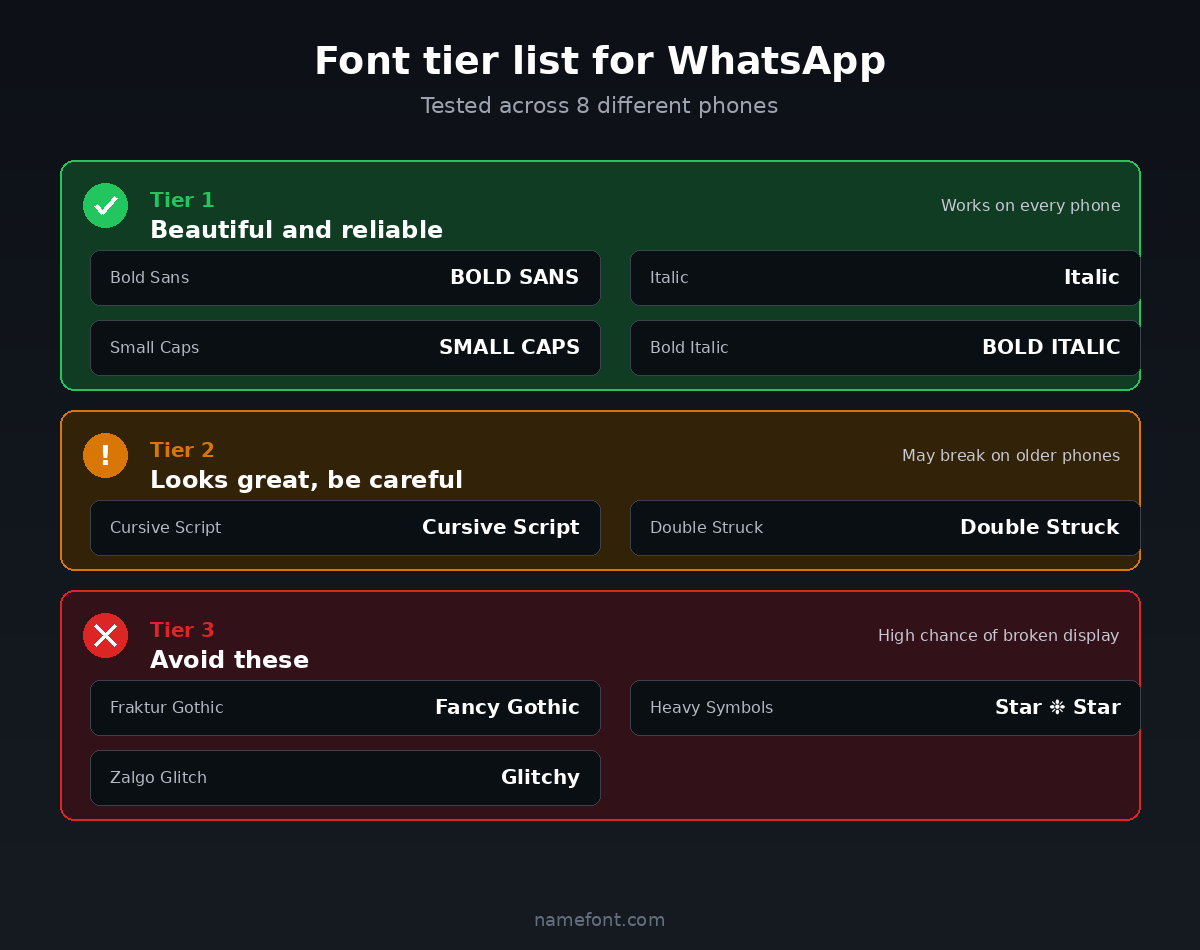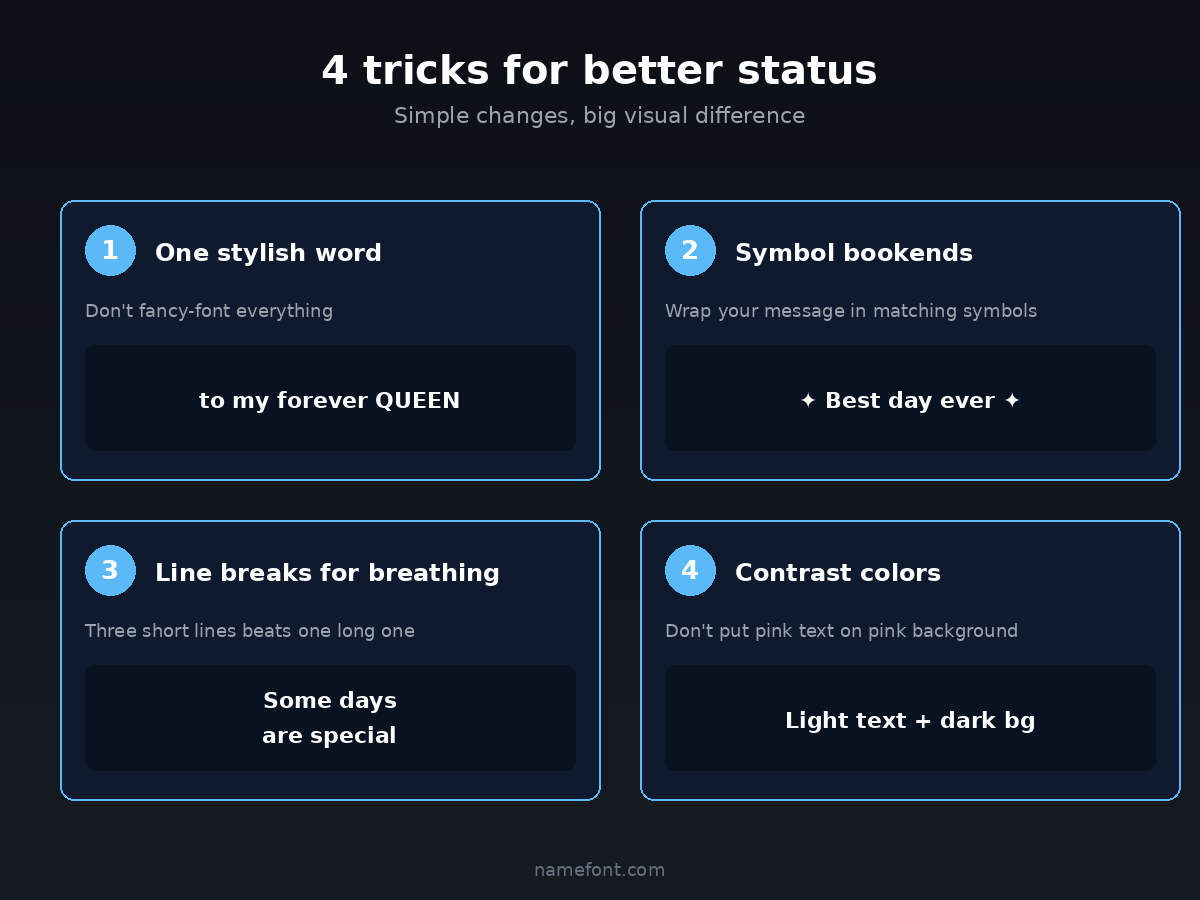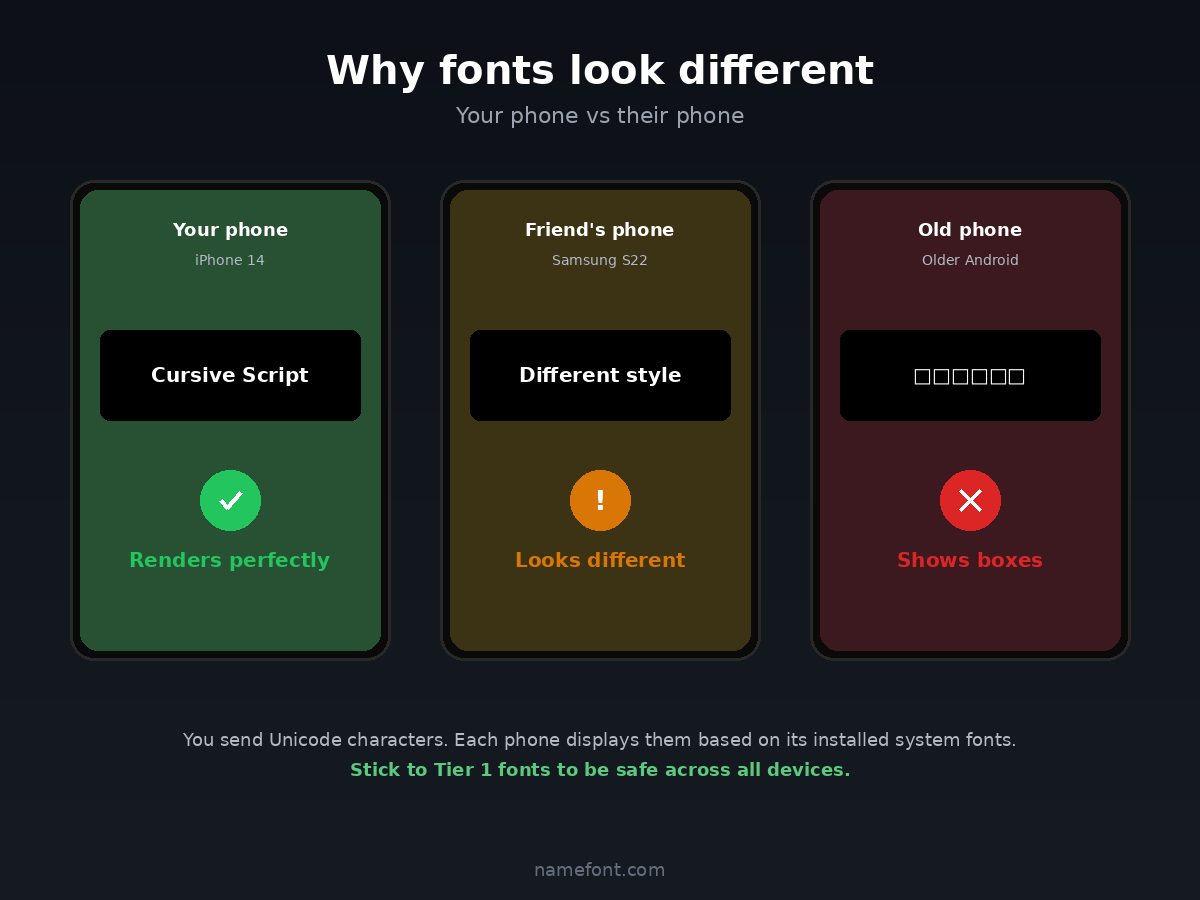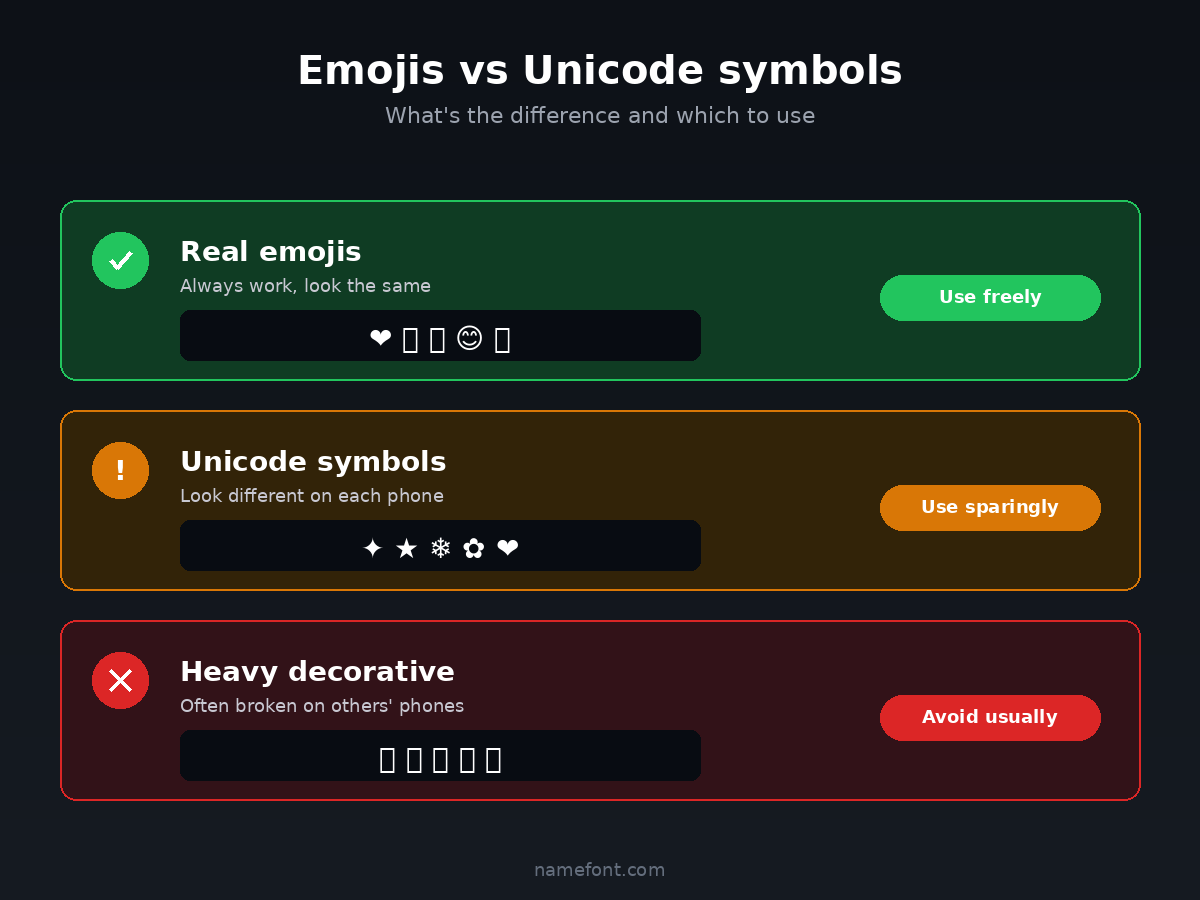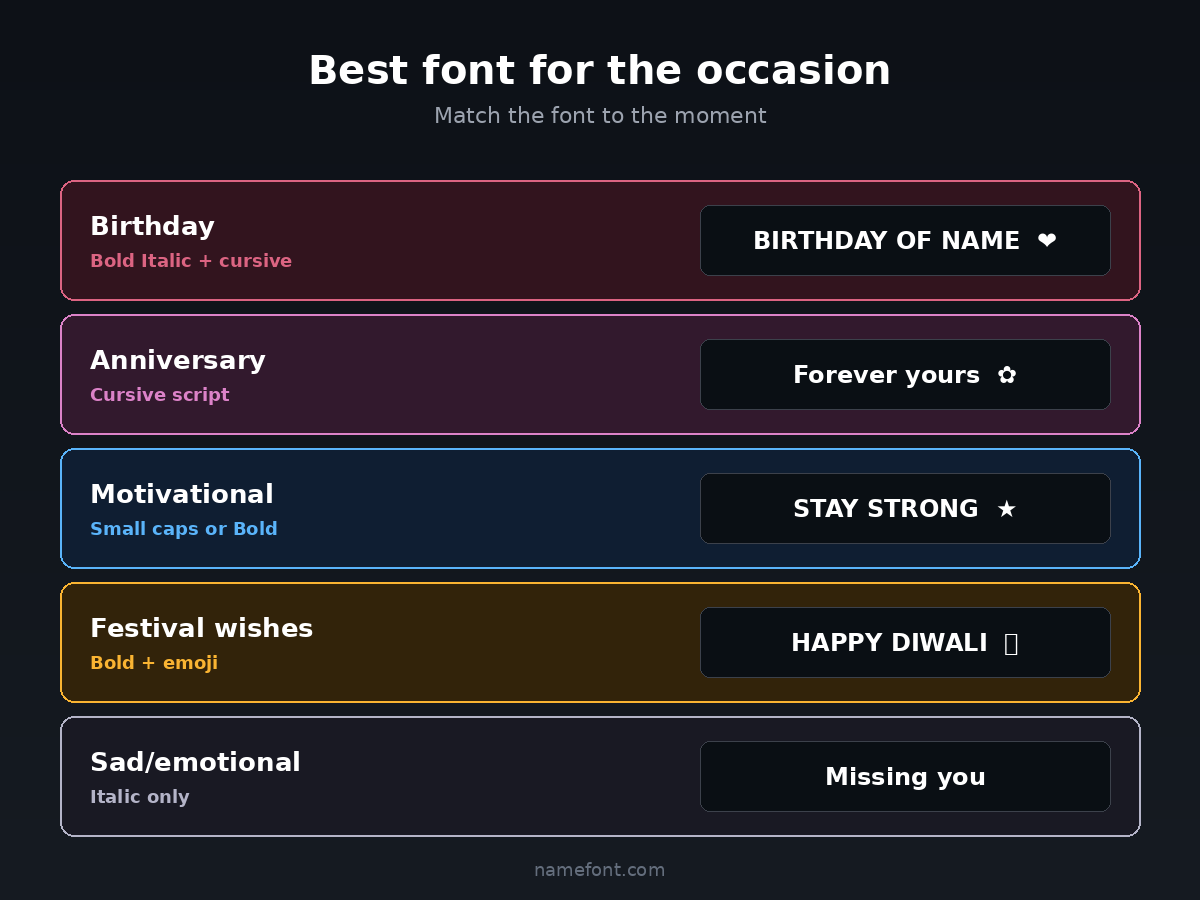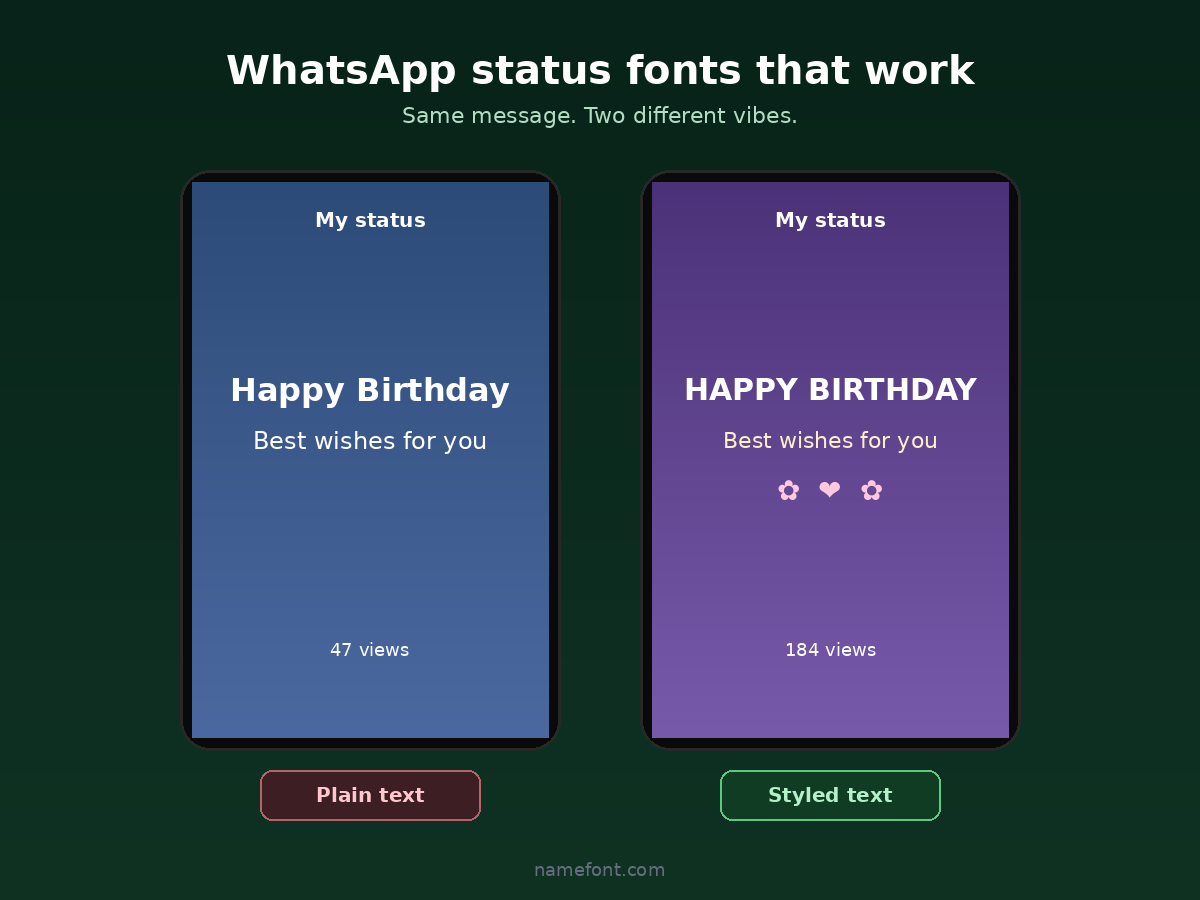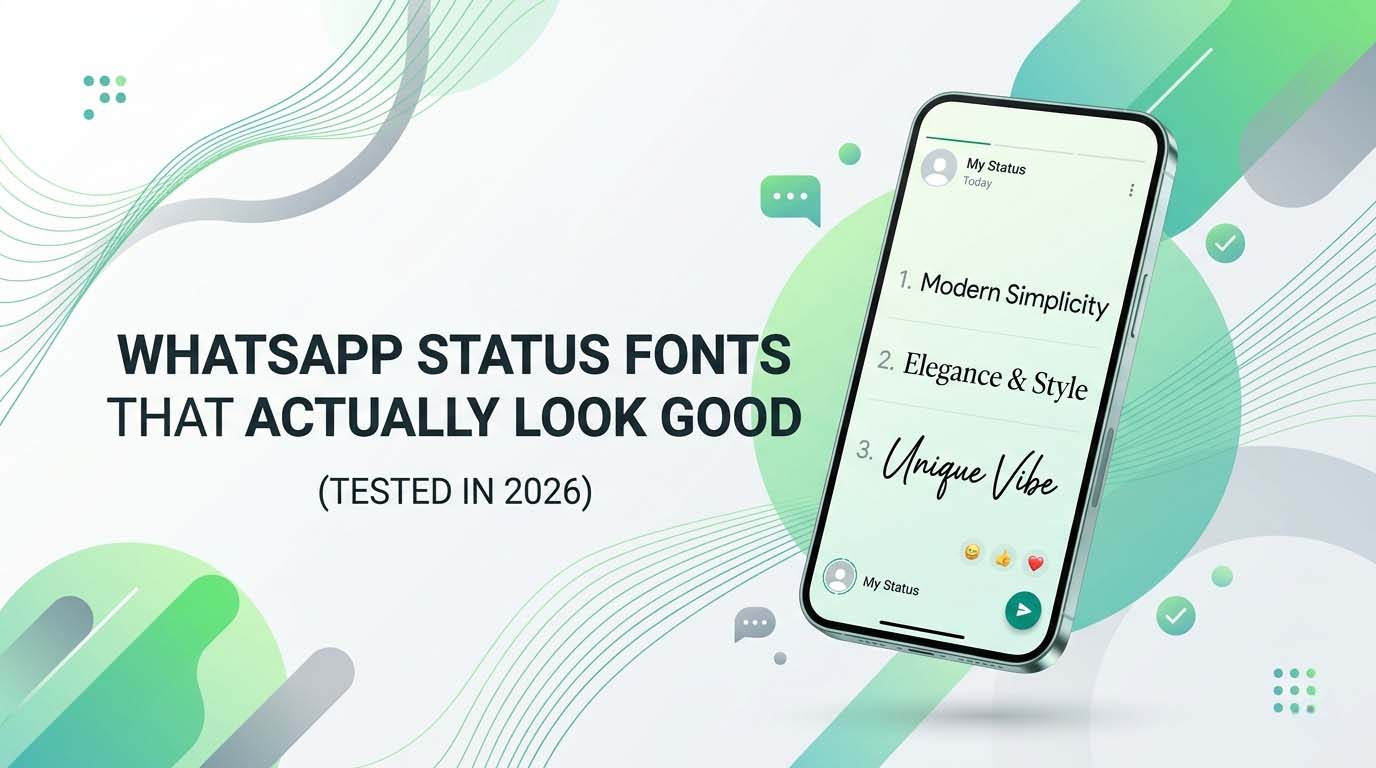
Quick question โ what's the difference between a WhatsApp status that gets 50 views and one that gets 200?
Sometimes it's the content. Sometimes it's just that the text looked beautiful enough that people stopped scrolling.
I'm not saying fancy fonts are magic. But after watching my cousin's birthday status get flooded with replies just because of how nice the font looked, I had to admit โ it makes a difference.
Here's what actually works for WhatsApp status fonts in 2026, what looks good across phones, and which ones to avoid.
WhatsApp text status vs photo status โ they work differently
First thing nobody tells you. WhatsApp has two completely different "status" types:
Text status (the colored background ones) โ has its own built-in fonts. You can't paste fancy Unicode here. Tap the "T" icon and you can switch between Sans Serif, Serif, Norican, Bryndan Write, and Richer fonts. That's it. Five options.
Photo or video status โ you can put any text on top including pasted fancy Unicode fonts. This is where 95% of stylish status posts happen.
Story caption โ same as photo status, full Unicode support.
So when people talk about "WhatsApp fancy fonts," they usually mean photo status overlays or text caption inside the photo, not the colored text-only status.
The fonts that look amazing on every phone
After testing on my own Realme, my friend's iPhone, and three different Samsung phones, these are the fonts that consistently render correctly across all of them:
Tier 1 โ Beautiful and reliable
Bold Sans (๐๐ผ๐น๐ฑ ๐ฆ๐ฎ๐ป๐) โ clean, modern, works on every device. Best for important messages, announcements, and quotes.
Italic (๐๐ต๐ข๐ญ๐ช๐ค) โ gives a soft, romantic feel without looking too fancy. Perfect for emotional posts.
Small Caps (sแดแดสส แดแดแดs) โ subtle stylish look. Doesn't scream "I copied this from a font generator."
Bold Italic (๐๐ฉ๐ฎ๐ก๐๐จ๐) โ combines both for a confident, polished look.
Tier 2 โ Looks great but be careful
Cursive Script (๐๐พ๐ป๐ผ๐ฒ๐ฟ๐ฎ) โ gorgeous for birthday wishes, anniversary messages, romantic posts. Sometimes shows squares on older Android phones (pre-2020).
Double Struck (๐ป๐ ๐ฆ๐๐๐) โ looks unique. Works on most newer phones. May break on old WhatsApp versions.
Tier 3 โ Avoid these
Fraktur Gothic (๐๐๐ซ๐ ๐ถ) โ looks cool but shows boxes on like 30% of phones. Risk it only if your audience all use newer phones.
Heavy decorative symbols (โ ๅฝก, ๊ง๊ง) โ these often render differently on iOS vs Android. Sender sees one thing, receiver sees something completely different.
Zalgo / glitch text โ rarely works in WhatsApp. Often gets stripped or shown as boxes.
What actually goes viral on status
Notice something? The most-shared, most-replied-to statuses aren't the ones with the fanciest fonts. They're the ones with:
A clear emotional message
ONE stylish element (font OR symbols, not both)
Readable text everyone can understand
A small personal touch
Compare these two:
Style heavy: ๐๐ช๐น๐น๐ ๐๐ฒ๐ป๐ฝ๐ฑ๐ญ๐ช๐ โฟ ๐ก๐ฎ๐ช๐ต ๐๐ฒ๐ฏ๐ฎ ๐๐ฎ๐ฐ๐ฒ๐ท๐ผ โฟ
Balanced: ๐๐๐ฅ๐ฅ๐ฎ ๐ฝ๐๐ง๐ฉ๐๐๐๐ฎ โฟ another year of being you โฟ
The second one is actually more readable, has emotional warmth, AND still looks stylish. That's what gets views and replies.
The 5 best status types and their best fonts
After looking at what works for different occasions:
Birthday status
Best font: Bold Italic for the name + cursive for the wish
Example structure: ๐ฝ๐๐ง๐ฉ๐๐๐๐ฎ of [Name] today โค๏ธ Wishing you all the happiness
Why it works: Stylish without being unreadable, and people can actually wish the person.
Anniversary or relationship
Best font: Cursive script with one decorative symbol
Example structure: ๐๐ท๐ฎ ๐๐ฎ๐ช๐ป ๐ญ๐ธ๐๐ท, ๐ฏ๐ธ๐ป๐ฎ๐ฟ๐ฎ๐ป ๐ฝ๐ธ ๐ฐ๐ธ โฟ
Why it works: Cursive feels romantic, single symbol adds emotion without overwhelming.
Motivational quote
Best font: Small caps or Bold Sans
Example structure: แดสแด สแดsแด แดษชแดแด แดแด sแดแดสแด แดกแดs สแดsแดแดสแด แดส. แดสแด sแดแดแดษดแด สแดsแด ษชs ษดแดแดก.
Why it works: Small caps add weight to the message without being overly decorative. Reads serious.
Festival wishes (Diwali, Eid, Holi, Christmas)
Best font: Bold with festival-themed symbols
Example structure: ๐๐๐ฅ๐ฅ๐ฎ ๐ฟ๐๐ฌ๐๐ก๐ โจ ๐ช โจ Light over darkness, always
Why it works: Bold makes the festival name pop, real emojis (not Unicode symbols) work better here.
Sad or emotional moment
Best font: Italic alone โ no decorations
Example structure: ๐๐ช๐ด๐ด๐ช๐ฏ๐จ ๐บ๐ฐ๐ถ ๐ต๐ฐ๐ฅ๐ข๐บ. ๐๐ข๐ต๐ค๐ฉ ๐ฐ๐ท๐ฆ๐ณ ๐ถ๐ด.
Why it works: Italic alone feels intimate and respectful. Adding decorations would feel inappropriate.
The phone compatibility issue
Here's something most people don't think about. When you post a fancy font on your WhatsApp status, the text leaves YOUR phone as Unicode characters. Then it lands on your friend's phone. What happens depends on:
And remember: the message matters more than the font. A simple "Thinking of you today" in plain text will always beat a beautifully styled but generic quote.
Make it look good, but make it readable first. That's the whole rule.